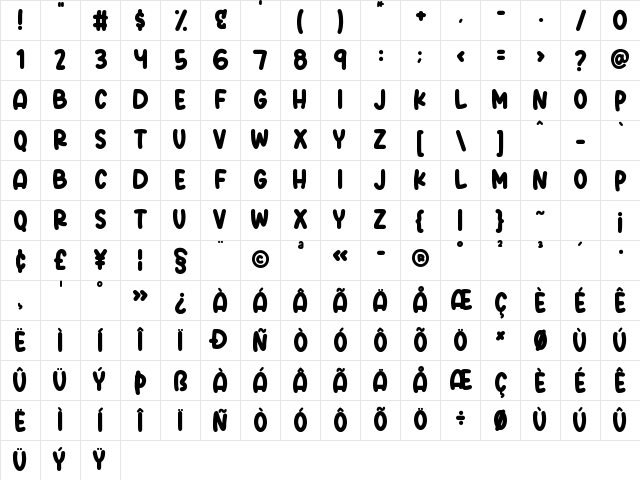
Sugar Donut Regular
Foundry: Dm Letter Studio
Designer: Dimas Prasetyo
Design Context for Sugar Donut
Sugar Donut is a composed and adaptable typeface that performs quietly and consistently across a wide range of design contexts.